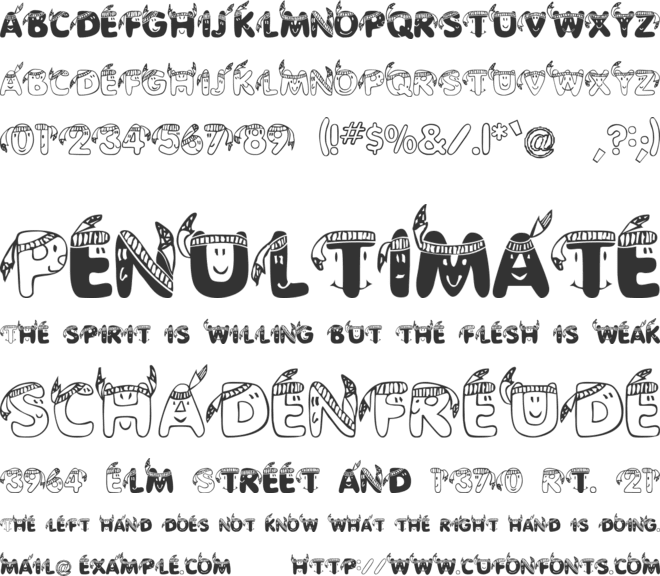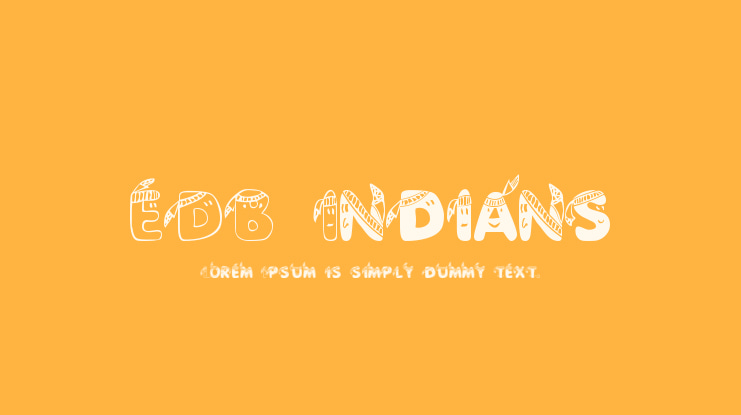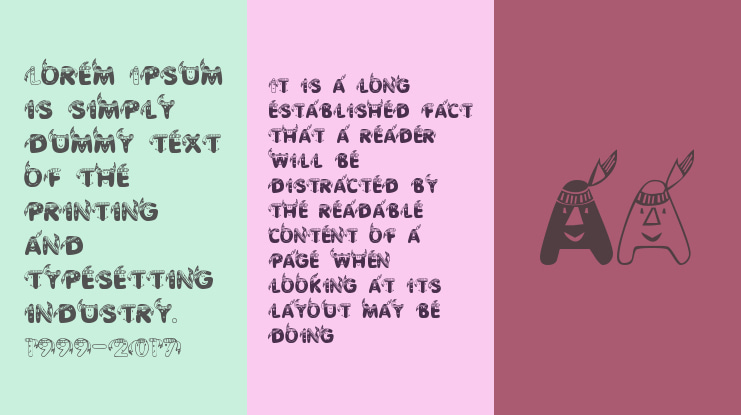
EDB Indians Font
This version includes upper and lowercase letters and most punctuation. I also included some UA Type dingbats (just to amuse myself, and so you don't get those annoying boxes when you type something that isn't in the font).
This is about as close to a Thanksgiving font as you come. Problem is, the release date was about two weeks for Thanksgiving of 1997. Maybe it will be used for subsequent years.
Edward Buri sent me an e-mail saying he had doodled some letters, and could I make them into an alphabet? He sent me lots of pages of ideas, and I told him that this one would work out great, if he could complete it. He did, and I fonted it. The upper-case outline version is what he gave to me. I just did those filled-in lowercase versions because I wanted to. I didn't realize when I started that it would double the completion time. Yeah.
Collaboration between Ben McGehee of UnAuthorized Type and Edward Buri.